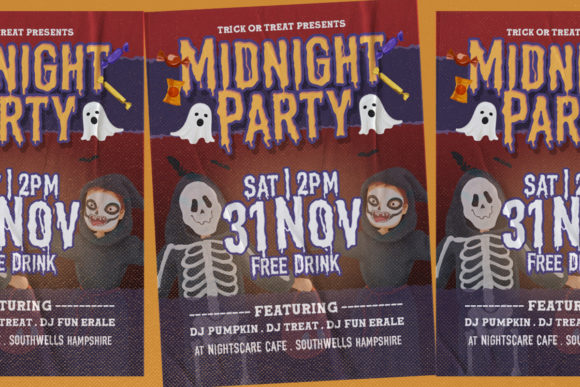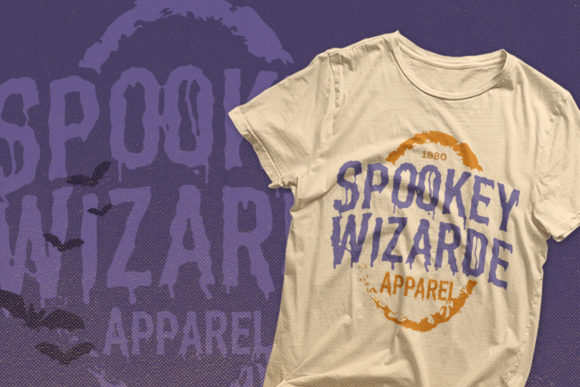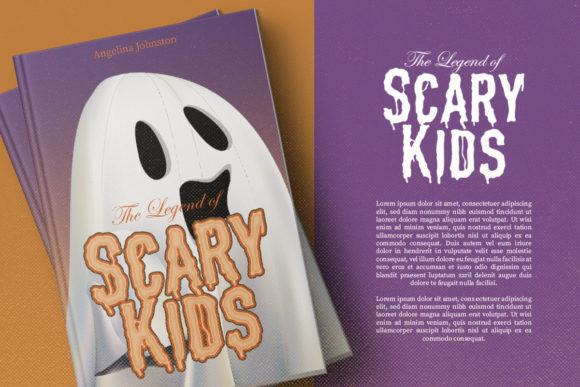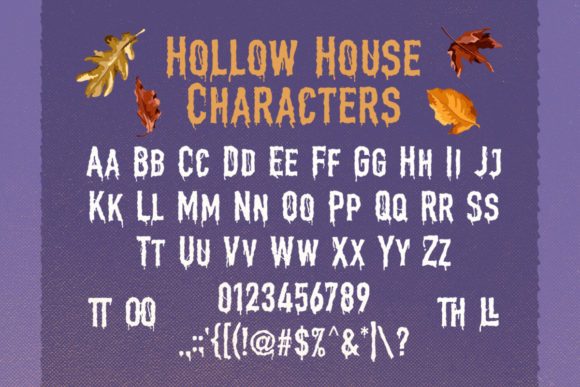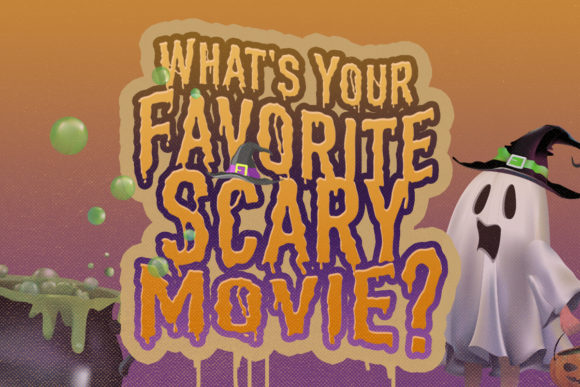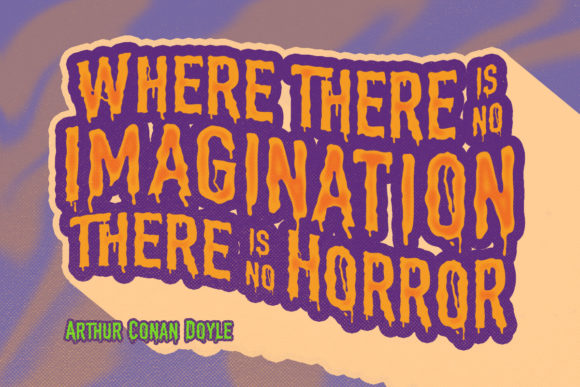
Introduction to Hollow House Font
Hollow House is a bold and spooky display font.
Add it to your Halloween crafts, horror movie posters, t-shirts and anything else that requires a spectacular look .
Key Features of Hollow House Font
Why Choose Hollow House Font?
Hollow House Font offers exceptional quality and versatility, making it a valuable addition to your design toolkit. Whether you’re creating for personal projects or commercial use, Hollow House Font delivers professional results.